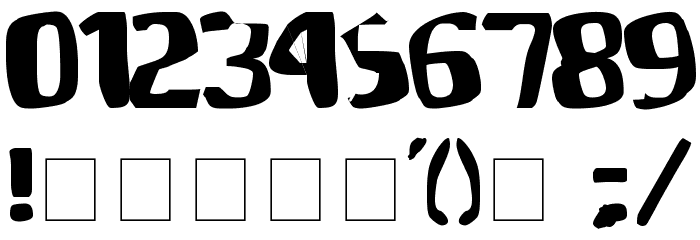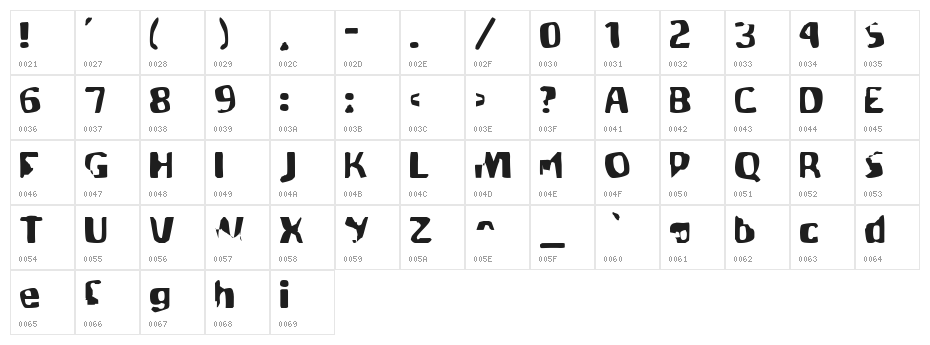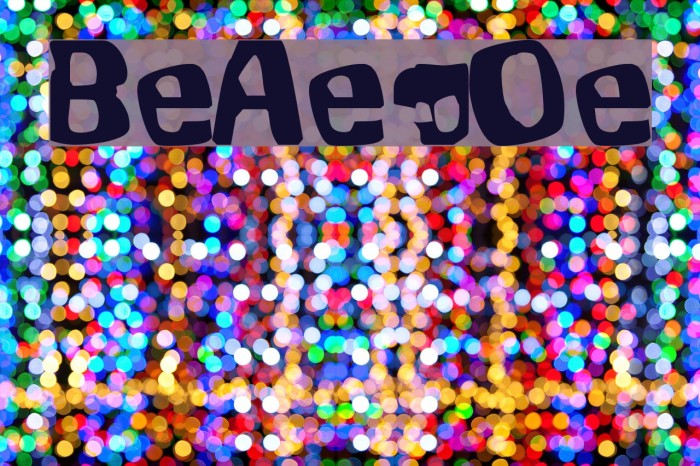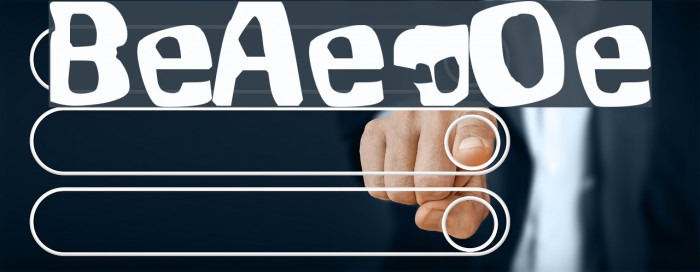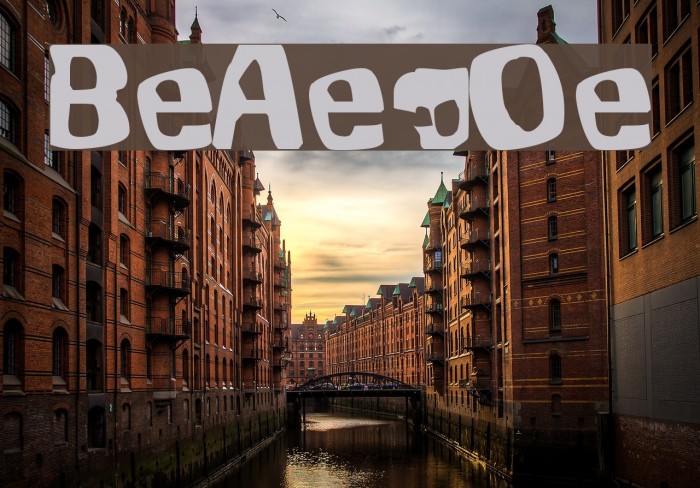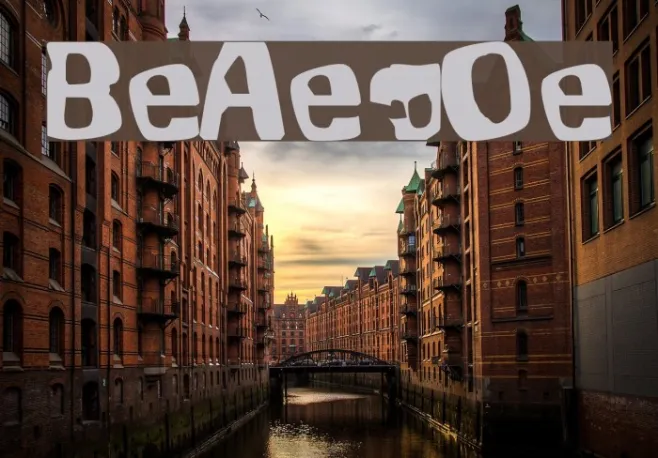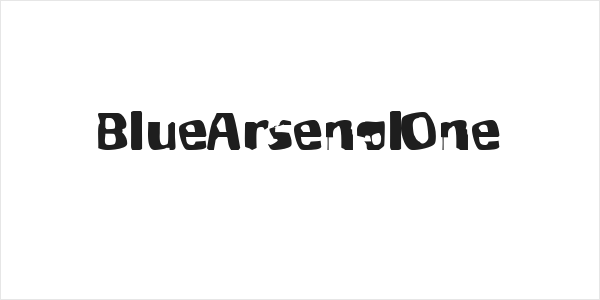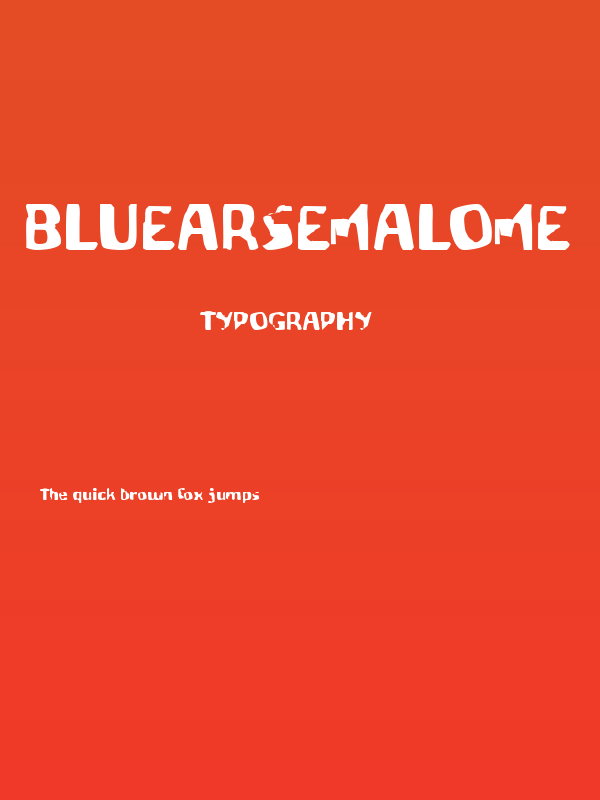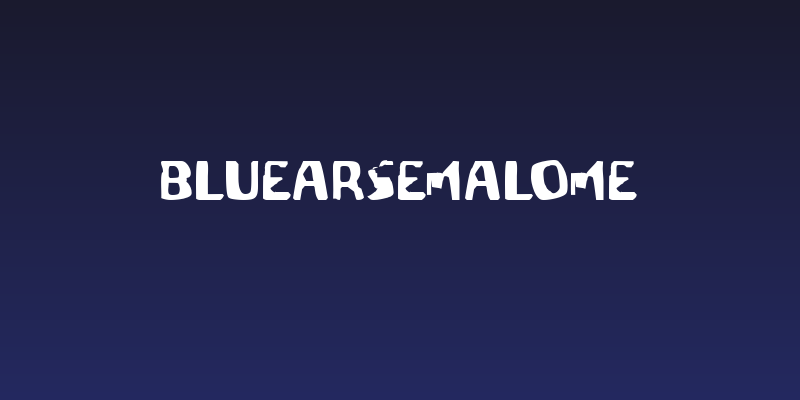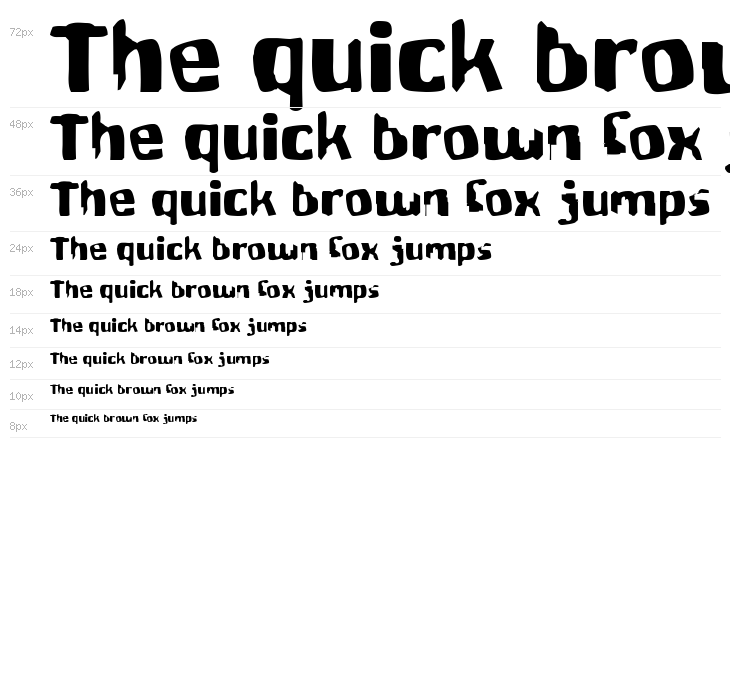
BlueArsenalOne Font
BlueArsenalOne Description
This font features a bold and dynamic style with a distinctly modern and edgy appearance. The characters are robust and slightly irregular, giving a sense of movement and energy. The uppercase and lowercase letters maintain a consistent weight, contributing to a cohesive look. The numbers are equally bold, ensuring visibility and impact. Special characters are designed to match the overall aesthetic, making them suitable for attention-grabbing designs. The font's unique style is characterized by its thick strokes and slightly jagged edges, which add a touch of ruggedness.
| Proposed Projects | Ideal for sports branding, urban-themed posters, and dynamic logo designs. |